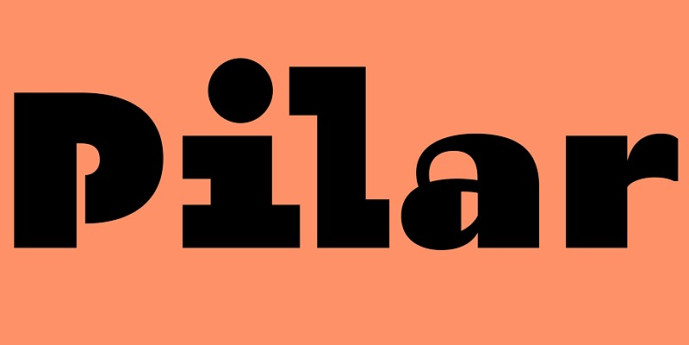
Pilar Font
Pilar Font is a new geometric sans serif typeface that was created specifically for display use. Pilar is a contemporary reimagining of European art nouveau typography. Originally, the typeface was designed by Yury Ostromentsky in 2012 for the “Bolshoi Gorod” magazine. The new version is heavily reworked and contains three alternative sets. Now each symbol has four different variations, each with their own style and character — Regular Open, Wide Closed, Narrow and “Wild”. This allows every word or phrase to have a different look depending on the case. Alternate sets are placed in the “Stylistic Sets” panel (OpenType > Stylistic Set in Adobe programs). If the Contextual Alternates feature is enabled, every next letter in the typed word will be using a different set (Default, Set 1, Set 2, Set 3, Default, etc). These features help designers create an extensive and rich typographic environment in their work and easily adjust it to their desired mood.